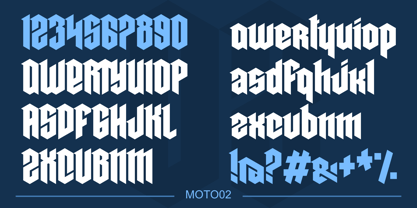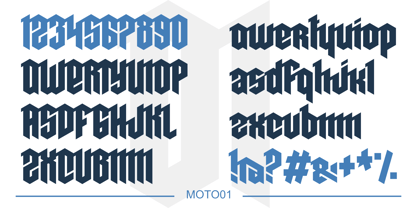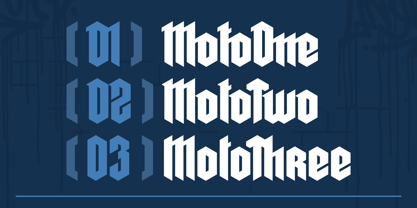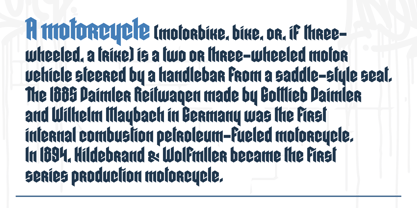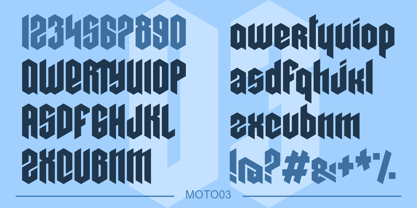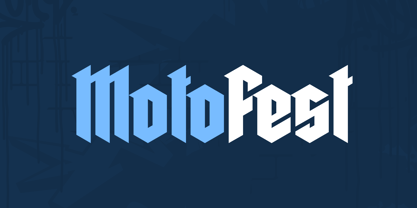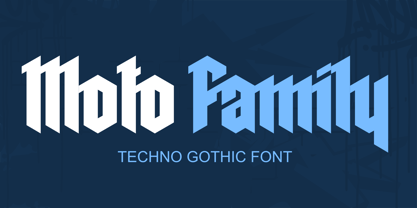
Moto
by Iron Set Studio
The Moto Font Family was designed by Anton Kustsinski and published by Iron Set Studio. Moto contains 3 styles and family package options. More about this family
This font combines gothic sharpness with a bold, street-style edge, creating a look that feels both raw and expressive. Its heavy, angular letterforms echo the aesthetics of the gaming industry, where power and intensity play a central role. The dense strokes and dramatic geometry also reflect the energy of heavy music, giving the text an aggressive, rebellious character. At the same time, the stylized, futuristic construction of the letters introduces a subtle cyberpunk vibe, making the font suitable for themes involving technology, dystopian worlds, and high-contrast visual atmospheres.
Iron Set Studio is a bold and experimental type design studio focused on creating unique graffiti, stencil, and abstract fonts. Inspired by urban culture, street art, and modern visual trends, the studio transforms raw energy into expressive letterforms that challenge convention. Each font blends creativity with attitude, making text not just a message, but a striking visual identity for artists, designers, and brands seeking originality.